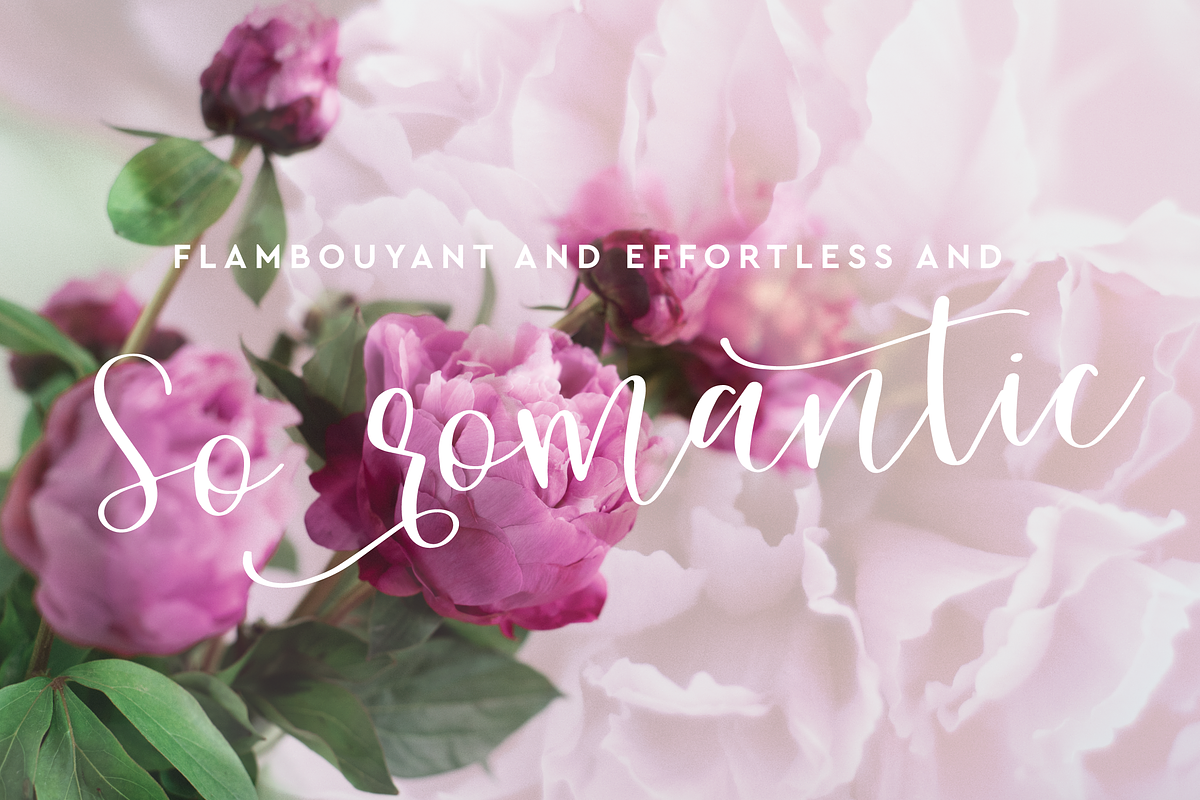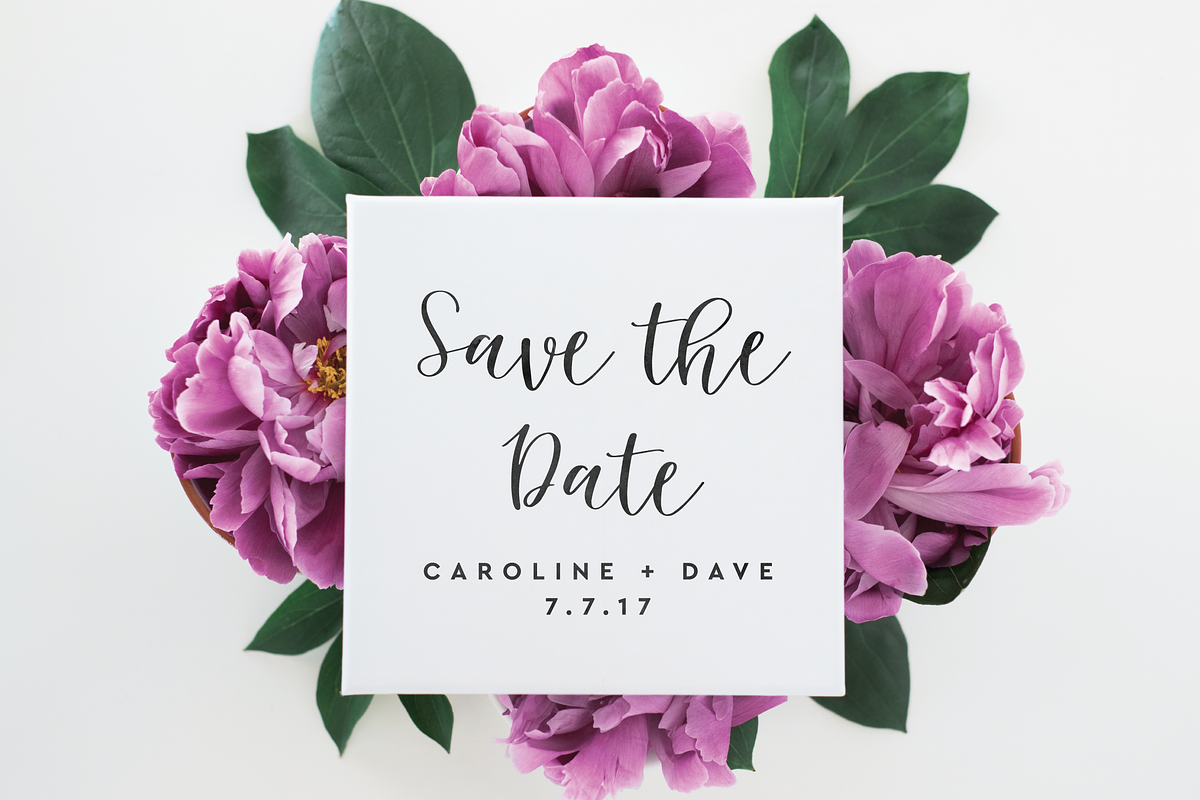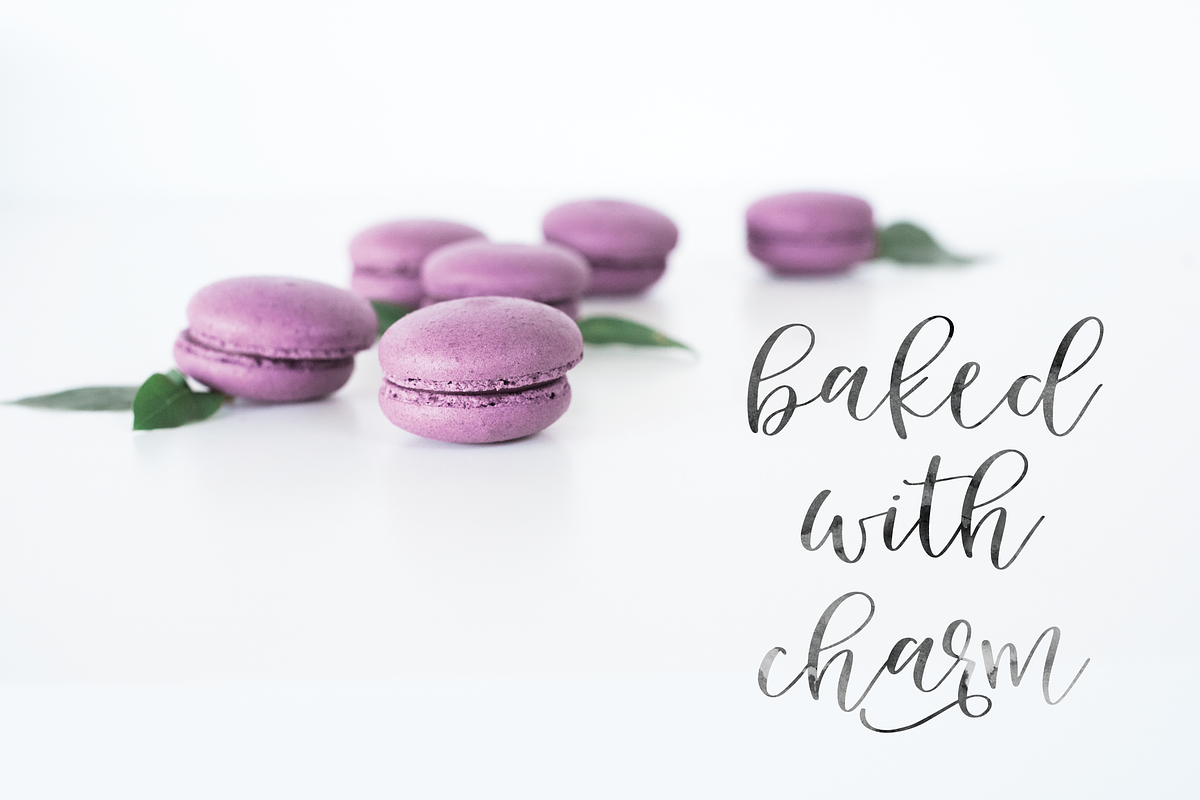
Sweet Carolina
Obsessed with hand-lettered fonts? Sweet Carolina script is a hand lettered font that packs designs with loads of southern charm. Sweet Carolina was inspired by easy South Carolina life and it's beautiful weather. The designer is currently living in a small town in South Carolina.
Sweet Carolina is perfect for using in your branding, weddings, logos, business cards, merchandise, greeting cards, posters, magazines, social media and websites.
Utilize all caps for a completely alternate style, or mix and match lowercase script + all caps for creative designs. Sweet Carolina has a variety of unique, coded features to create compelling, handmade outcomes: 10 stylistic alternates, 2 initial characters, 6 end characters, 4 discretionary ligatures and 3 standard ligatures.